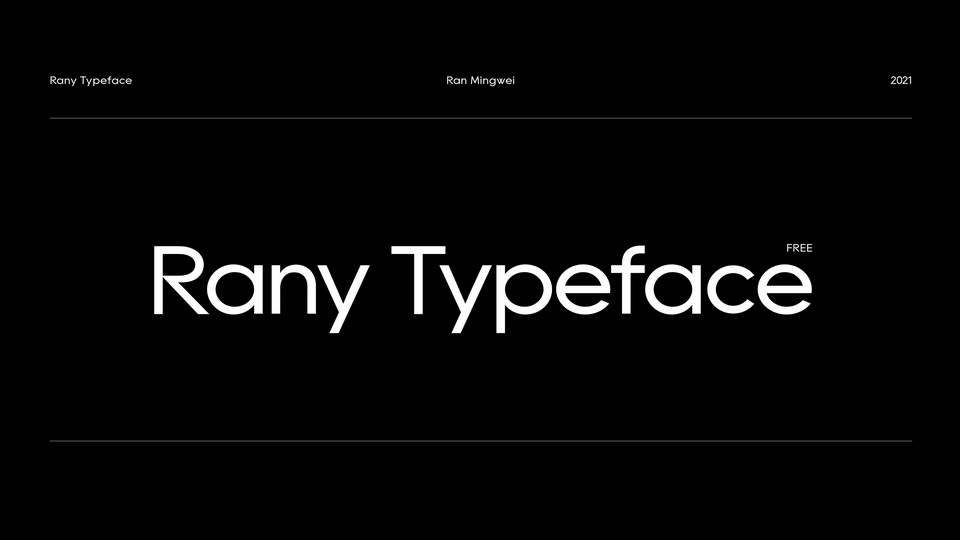
Feb 9, 2025Sans SerifRany Typeface Rany is a simple modern geometric sans serif typeface named after author’s nickname. It’s suitable for logo, title, web page and mobile device UI, etc.Rany font family comes in four weights with matched Italics. Font DetailsDesigned by: Ran MingweiWebsiteLicense: Free for commercial use Download Rany TypefaceFile size: 203.31 KBCreated: February 16, 2025Updated: February 16, 2025 Download Explore similar fonts Libre Franklin Font Family Neue Montreal Font Family Evert PE Font Family Dobra Font Family Raleway Font Family TT Interphases Pro Font Family # Basic# Contemporary# Family# Geometric# Grotesque# Italic# Text